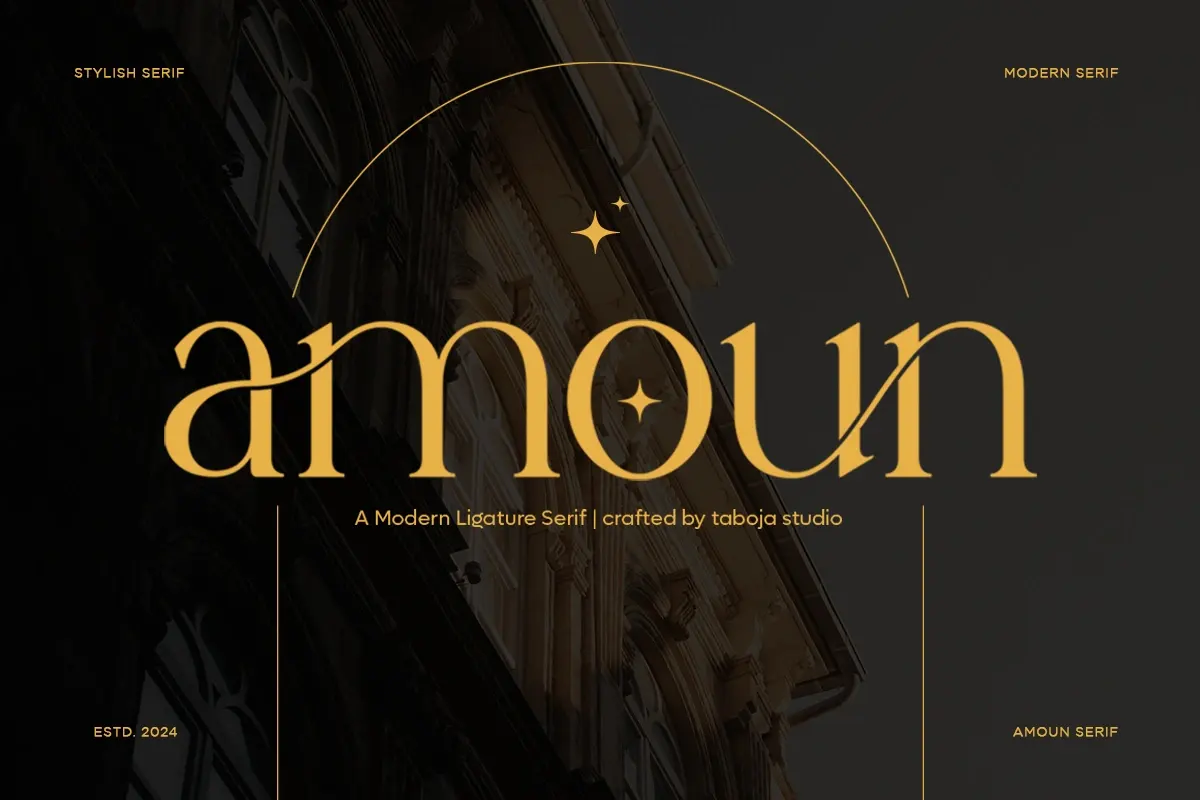
TBJ Amoun | Classy Modern Serif Font Free Download is a stunning blend of elegance and modernity, crafted for designers who crave sophistication in their typography. With its sharp serifs, graceful curves, and clean lines, TBJ Amoun brings a luxurious, high-end feel to branding, editorial layouts, invitations, and more. It’s the perfect choice when you want to make a statement without shouting.
The charm of TBJ Amoun | Classy Modern Serif Font Free Download lies in its refined aesthetic and strong presence. Each letterform is meticulously balanced to deliver readability while still exuding a distinct personality. Whether used in fashion branding, upscale product packaging, or elegant website headers, this font instantly elevates the visual tone of your project.